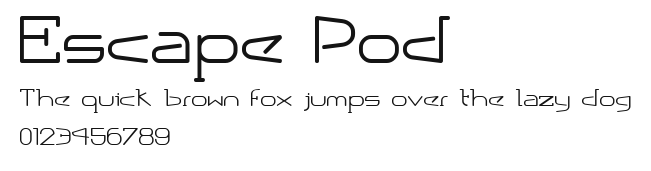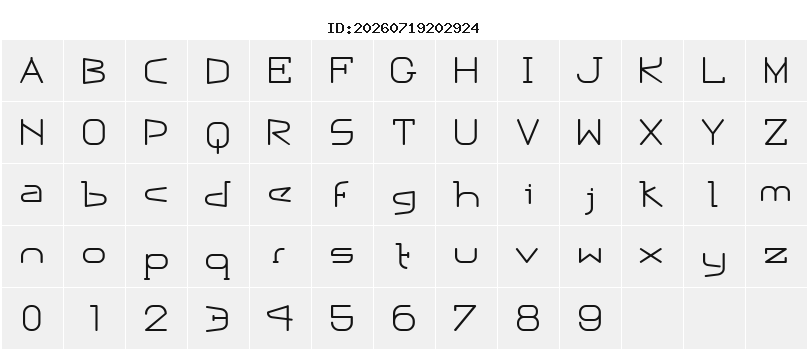
Escape Pod Preview
• Font Name: Escape Pod
• Font ID: Macromedia Fontographer 4.1 Escape Pod Normal
• Full Font Name: Escape Pod Normal
• Version: Macromedia Fontographer 4.1 12/15/2000
• PostScript Name: EscapePodNormal
About Escape Pod.ttf
Escape Pod.ttf is a modern, elegant sans-serif font designed for ultimate readability and visual harmony. Perfect for branding, headlines, web design, and print materials.